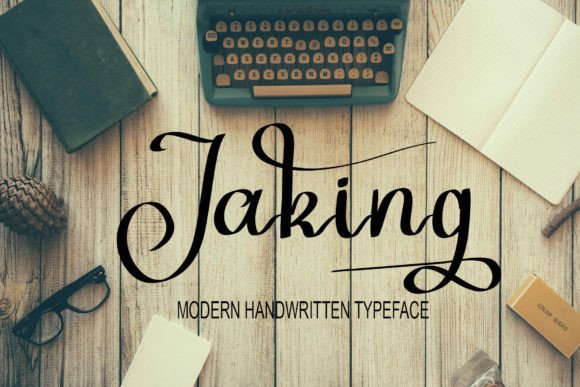
Step into the realm of elegance and sophistication with Jaking Font, a captivating script family born out of Canden Meutuah's creative genius. Jaking's hand-crafted strokes, meticulously rendered on a digital tablet, exude a touch of artistry that breathes life into your designs. Whether you're a seasoned designer or a passionate hobbyist, Jaking will unveil your inner creative with its effortless grace.
Designed to enhance the beauty of Latin scripts, Jaking seamlessly lends its charm to a myriad of projects. From websites that demand attention to elegant wedding invitations, business cards that leave an impression to signatures that speak volumes, Jaking effortlessly adapts to your creative vision. Unleash your imagination and let Jaking elevate your designs to new heights of brilliance.
With Jaking, simplicity and style converge in perfect harmony. While its understated elegance may appear effortless, closer inspection reveals intricate details that add depth and character to your work. This font is not merely a tool; it's an extension of your creativity, a reflection of your discerning taste. Let Jaking elevate your designs, transform them into captivating expressions of your unique style.
Embark on a creative journey with Jaking Font, and let its enchanting aura captivate your audience. From product advertisements that demand attention to captivating social media posts, Jaking seamlessly adapts to your marketing needs. Its timeless appeal transcends trends, ensuring that your designs remain captivating for years to come.